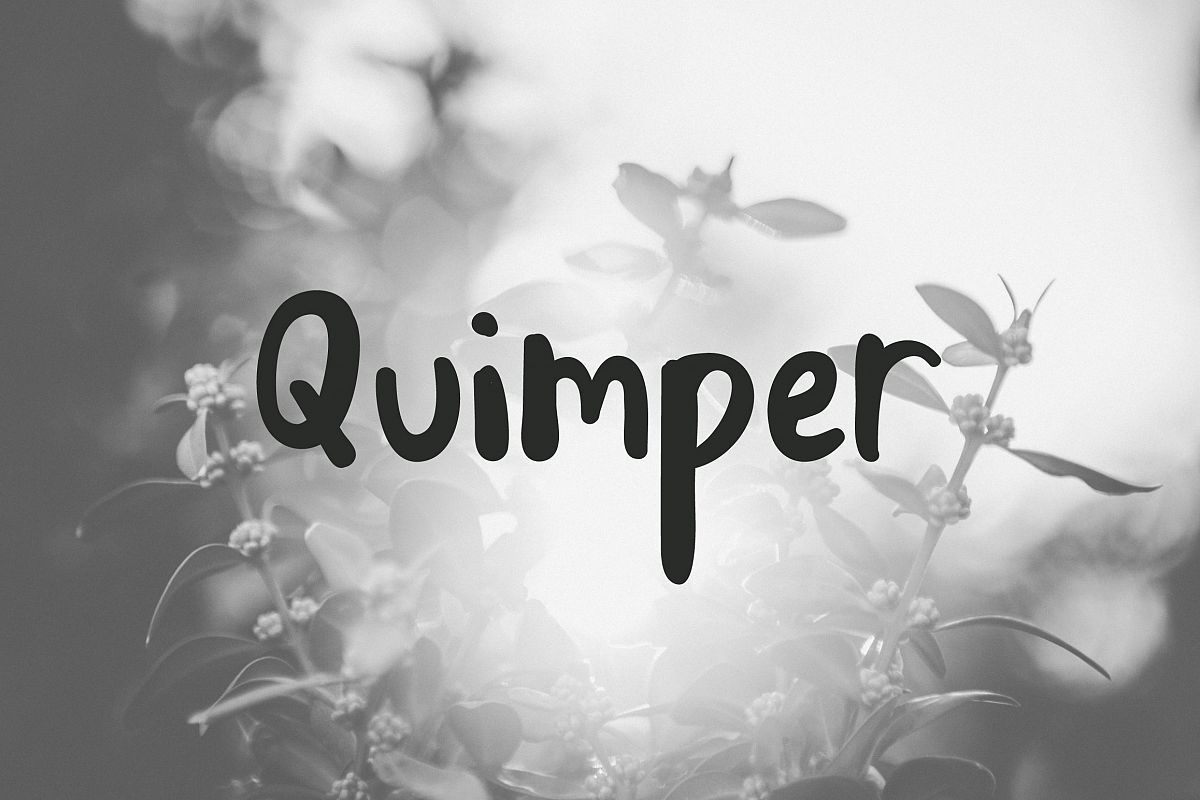
Quimper | Friendly Sans Serif
Quimper is a sans serif, playful, handwritten font with imperfect edges. With a full suite of uppercase and lowercase letters, Quimper can be used in many style contexts and design environments. Perfect for poster or t-shirt design, magazines, websites, logos, boho wedding invitations and much more! Vary the lower- and uppercase letters to achieve a new, unique design every time you use it!